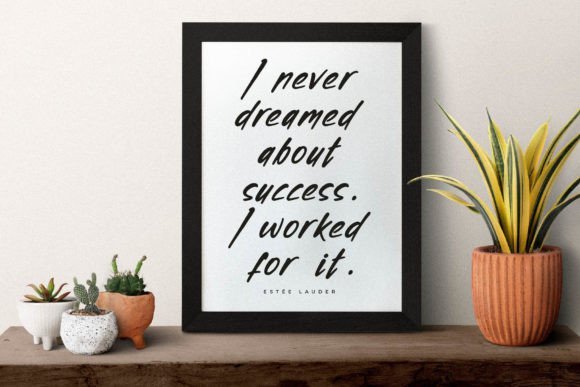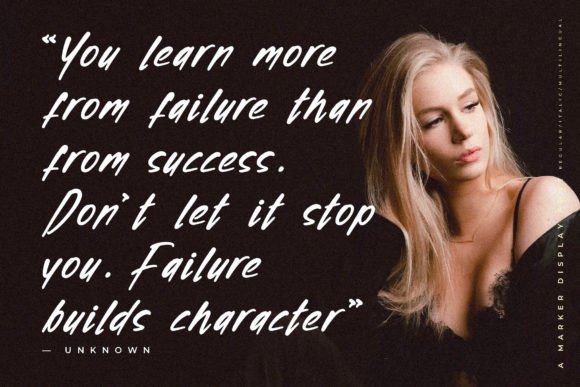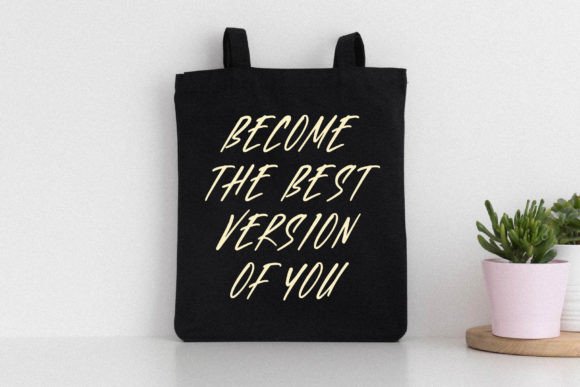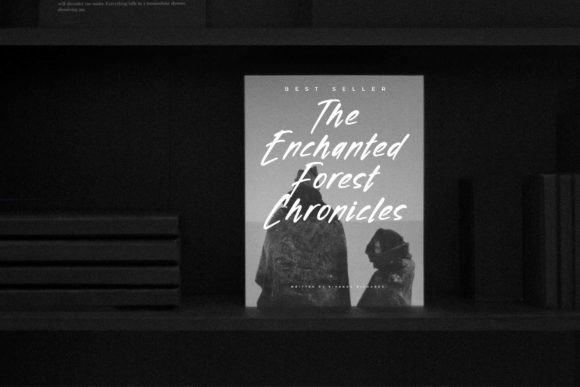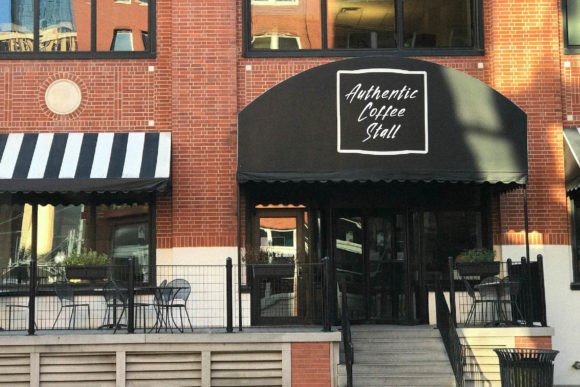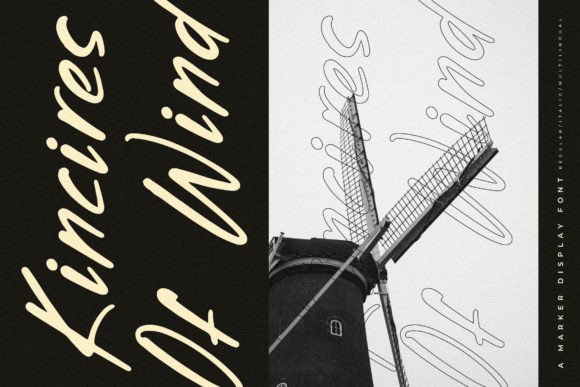
Introduction to Hicktomes Font
Have you ever been in the midst of a creative project, staring at a blank canvas, trying to find the perfect font to bring your vision to life? It’s that moment of frustration and excitement when you stumble upon a game-changing design resource – like the stunning Hicktomes Font.
This elegant script font is a treasure trove for designers, offering a high-quality, versatile solution for any creative project. With its beautiful, flowing lines, Hicktomes Font is perfect for logos, branding projects, homeware designs, and even product packaging. Whether you’re designing mugs, quotes, posters, or shopping bags, this font is sure to add a touch of sophistication and style. And the best part? It’s available for free download, complete with a transparent background, making it a valuable addition to any designer’s toolkit.
As a design resource, Hicktomes Font is a must-have for anyone looking to elevate their projects and leave a lasting impression. Its timeless beauty and versatility make it an invaluable asset for designers of all levels, from beginners to seasoned pros.
Key Features of Hicktomes Font
- High-quality, unique design perfect for creative projects, including logos, posters, and branding materials.
- Includes a range of characters and glyphs, including Latin and Cyrillic scripts, to cater to diverse language needs.
- Unique characteristics include a bold, modern aesthetic and a range of stylistic alternates to add depth and variety to your design.
Honest Review: Hicktomes Font
I recently had the chance to work with the Hicktomes Font, and I must say it’s been a solid addition to my design resource library. The font’s high quality is immediately apparent, with crisp lines and smooth curves that make it perfect for a wide range of creative projects.
- ✨ One of the standout features of the Hicktomes Font is its versatility – it’s suitable for everything from headings to body text, and even works well for logotypes and branding.
- ✨ The font also comes in a transparent background version, which is a huge plus for designers who need to create designs with a subtle, layered look.
While the Hicktomes Font is a great addition to my library, there are a few limitations to be aware of:
- ⚠️ The font only comes in a single weight, which may not be ideal for designers who need a range of weights and styles for their projects.
- ⚠️ The font may not be suitable for use in very small sizes or for text-heavy designs – its readability can be a bit of an issue at very small sizes.
Overall, I’m really impressed with the Hicktomes Font, and I’d definitely recommend it to designers looking for a high-quality, versatile font for their creative projects.
Tips for Getting the Most Out of Hicktomes Font
For a transparent background, use the Hicktomes Font with a solid-colored text box or a transparent PNG image. Experiment with different font sizes and styles to create visually appealing designs. You can also combine the Hicktomes Font with other design elements, such as images and graphics, to create engaging visuals.
The Hicktomes Font is ideal for creating logos, branding materials, and marketing collateral. Its high-quality design makes it perfect for use in creative projects, such as brochures, flyers, and social media graphics.